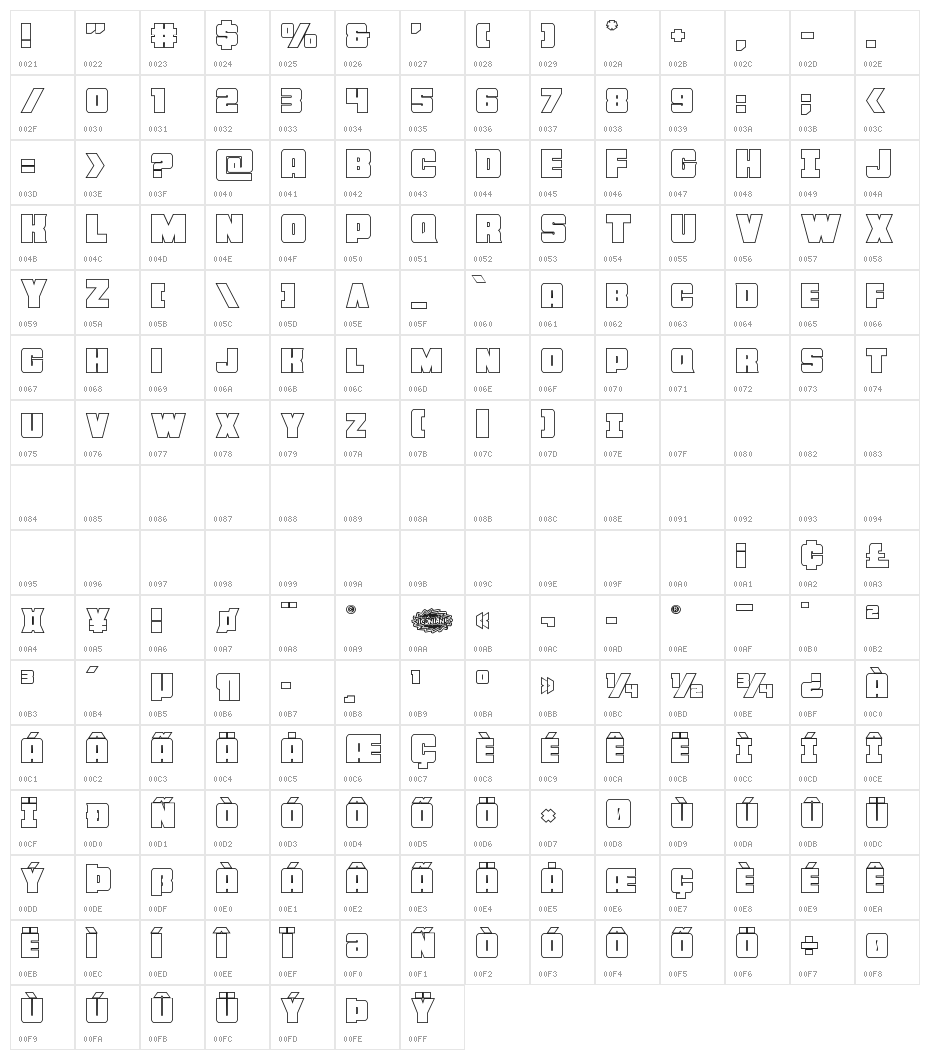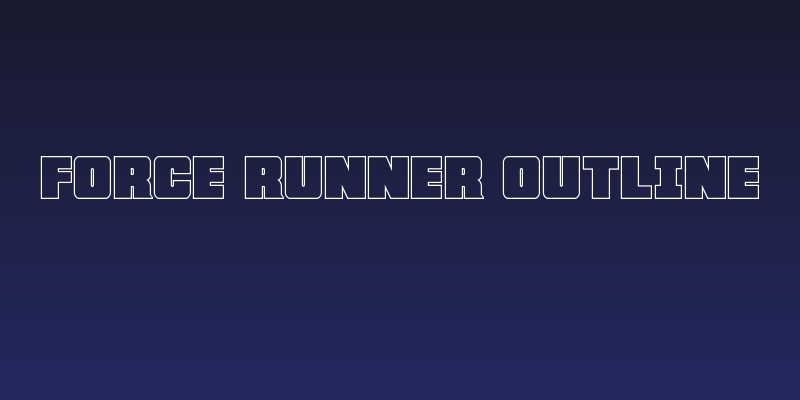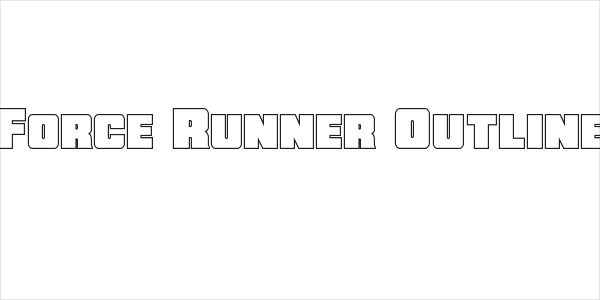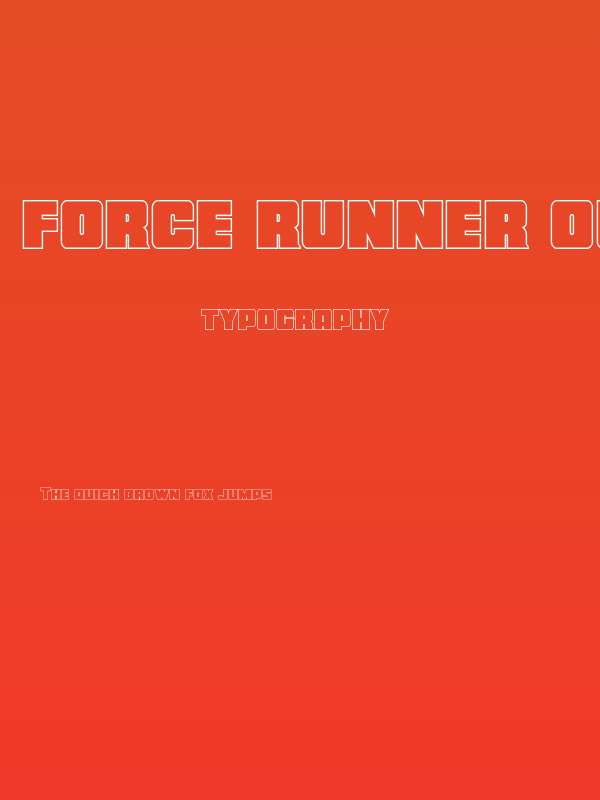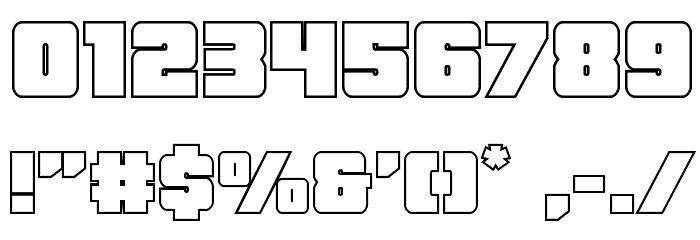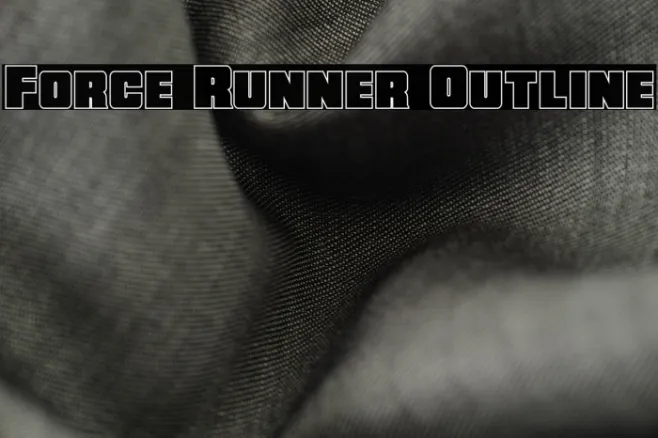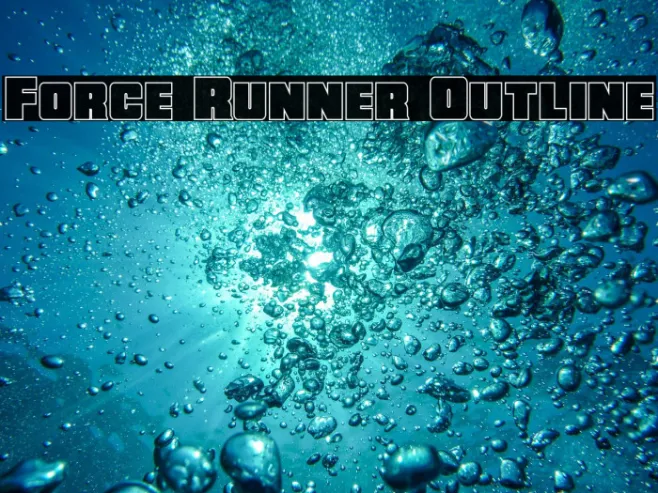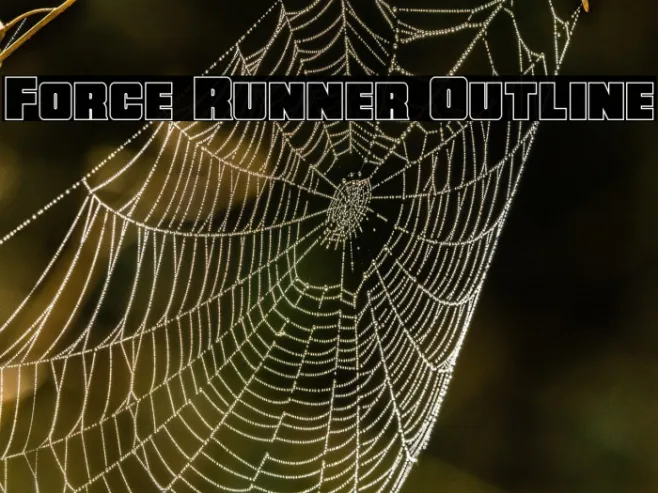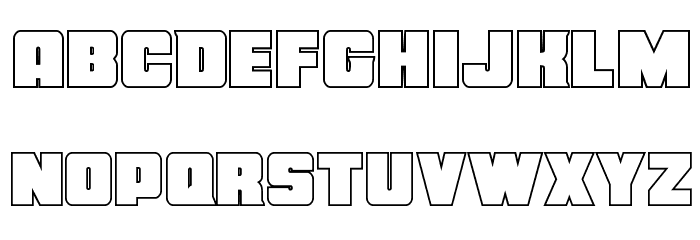
Force Runner Outline Font
Force Runner Outline Description
This font features a bold, geometric outline style that gives it a strong and impactful appearance. The characters are constructed with thick, uniform lines that form a hollow interior, creating a striking visual effect. The uppercase letters are blocky and robust, with a consistent height and width that contribute to a cohesive look. The numerals and special characters maintain the same bold outline, ensuring uniformity across all glyphs. This font's design is both modern and industrial, making it suitable for projects that require a strong visual presence.
| Overall Style | Modern, Industrial |
| Proposed Projects | Ideal for use in branding, posters, headlines, and any design requiring a strong, impactful font. |